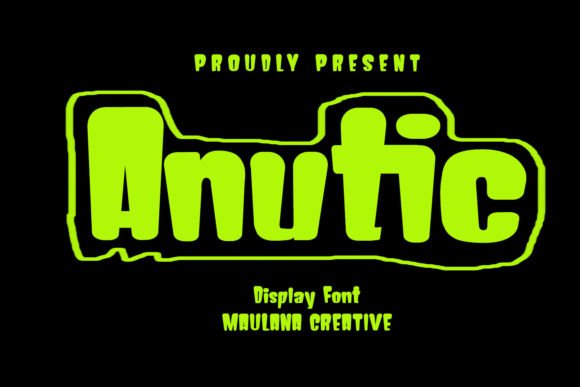
Introducing Anutic Font: The Playful and Unique Display Font
Are you tired of using the same old fonts in your designs? Look no further than Anutic Font, a playful and unique display font that’s sure to bring a lot of fun to your creative projects. With its special characters, alternate versions of letters, and cool combinations called ligatures, Anutic Font is the perfect choice for making your text stand out.
What Makes Anutic Font Special?
• Playful and Unique Design: Anutic Font has a one-of-a-kind design that’s sure to grab attention. Its playful and fun style makes it perfect for use in creative projects, such as posters, flyers, and social media graphics.
• Special Characters: Anutic Font comes with a range of special characters, including alternate versions of letters and ligatures. These special characters allow you to add an extra touch of personality to your text.
• Alternate Versions of Letters: Anutic Font includes alternate versions of letters, which can be used to create a unique and customized look. Whether you want to emphasize a particular word or phrase, or simply add some visual interest to your text, these alternate letters are the perfect solution.
• Ligatures: Ligatures are a key feature of Anutic Font. These cool combinations of letters can be used to create a more dynamic and visually appealing text. Whether you’re looking to add a touch of elegance or whimsy to your design, ligatures are a great way to do it.
How to Use Anutic Font
Anutic Font is a versatile font that can be used in a wide range of design projects. Here are just a few ideas to get you started:
• Posters and Flyers: Anutic Font is perfect for creating eye-catching posters and flyers. Its playful and fun design makes it a great choice for advertising events, promotions, and products.
• Social Media Graphics: Anutic Font can be used to create engaging social media graphics, such as Facebook posts, Instagram stories, and Twitter headers. Its unique design is sure to help your content stand out in a crowded feed.
• Logos and Branding: Anutic Font can be used to create a unique and memorable logo for your brand. Its playful and fun design makes it a great choice for businesses that want to convey a sense of personality and whimsy.
• Packaging Design: Anutic Font can be used to create eye-catching packaging design. Its special characters and ligatures make it a great choice for adding a touch of personality to product labels and packaging.
The Benefits of Using Anutic Font
There are many benefits to using Anutic Font in your designs. Here are just a few:
• Unique Design: Anutic Font has a unique design that’s sure to help your text stand out. Its playful and fun style makes it a great choice for creative projects.
• Highly Versatile: Anutic Font is a highly versatile font that can be used in a wide range of design projects. Whether you’re creating a poster, social media graphic, or logo, Anutic Font is a great choice.
• Special Characters: Anutic Font comes with a range of special characters, including alternate versions of letters and ligatures. These special characters allow you to add an extra touch of personality to your text.
Tips for Using Anutic Font
Here are a few tips for using Anutic Font in your designs:
• Use it Sparingly: Anutic Font is a bold and playful font, so it’s best to use it sparingly. Use it to emphasize a particular word or phrase, or to add a touch of personality to your text.
• Experiment with Different Sizes: Anutic Font looks great in a variety of sizes. Experiment with different sizes to find the one that works best for your design.
• Pair it with Other Fonts: Anutic Font can be paired with other fonts to create a unique and visually appealing text. Try pairing it with a clean and simple font to create a striking contrast.
• Have Fun: The most important thing is to have fun with Anutic Font! Its playful and fun design makes it a great choice for creative projects, so don’t be afraid to experiment and try new things.
Anutic Font is a playful and unique display font that’s sure to bring a lot of fun to your designs. With its special characters, alternate versions of letters, and cool combinations called ligatures, Anutic Font is the perfect choice for making your text stand out. Whether you’re creating a poster, social media graphic, or logo, Anutic Font is a great choice. So why not give it a try and see what you can create?